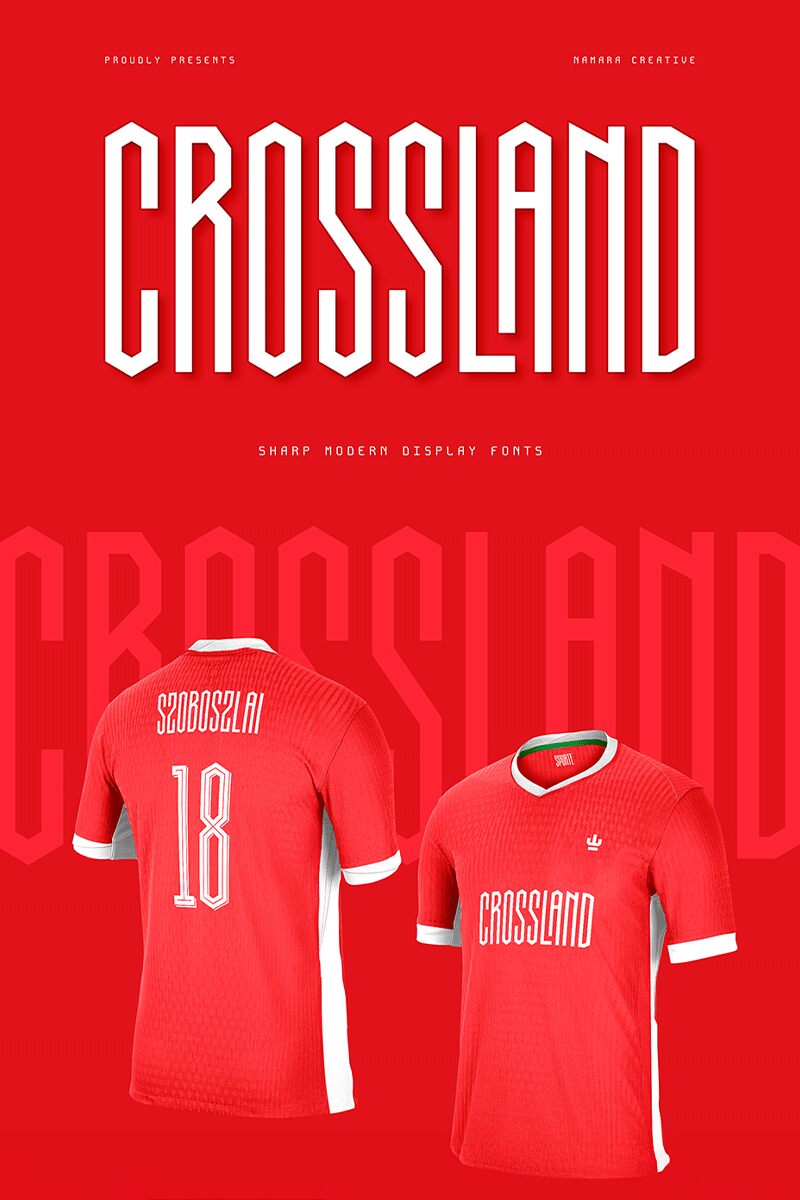
Crossland font by Namara Creative is a structured and impactful techno display typeface with a geometric touch. The modern free font has an assertive dynamic design that distinguishes it and leaves a mark on any project where it is used. The style shows sharp letter edges and geometric inspiration. Additionally, its limited character set includes both lowercase and uppercase letters with numbers as well.
The contemporary feel of Crossland can support a variety of personal design projects, from logos to branding, visual identity, posters, printed designs, digital artwork, and more.
Dynamic typeface designed for attention-grabbing headlines, sports branding, and any context requiring an energetic and commanding presence.